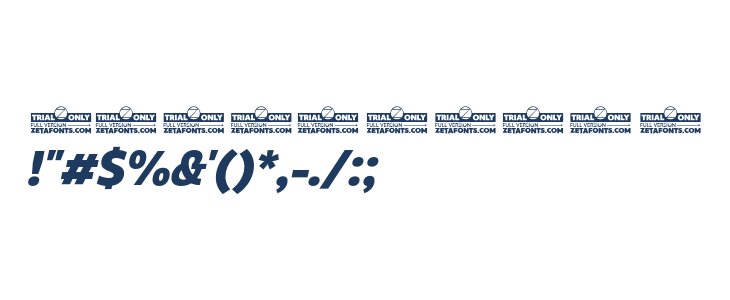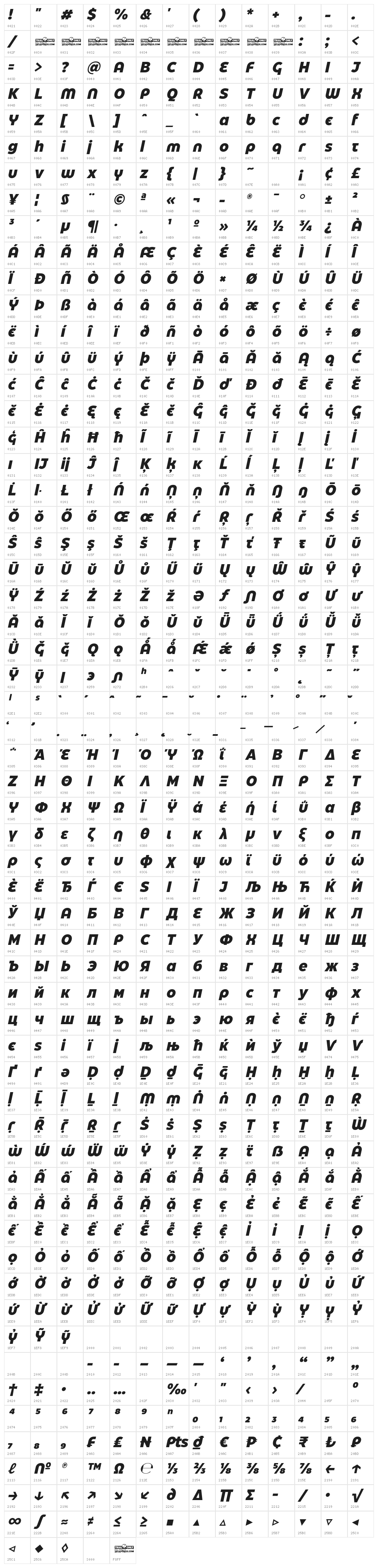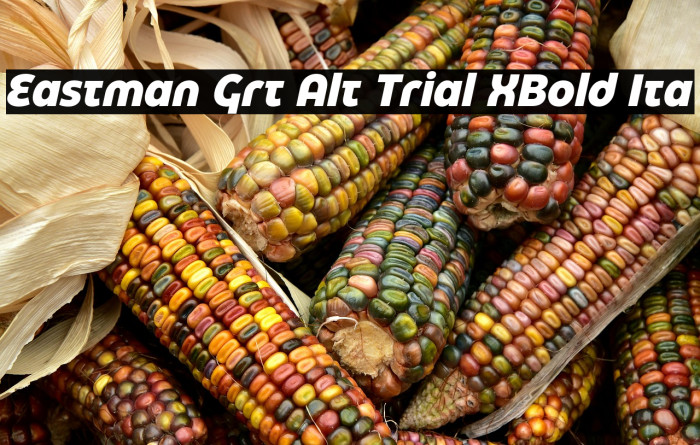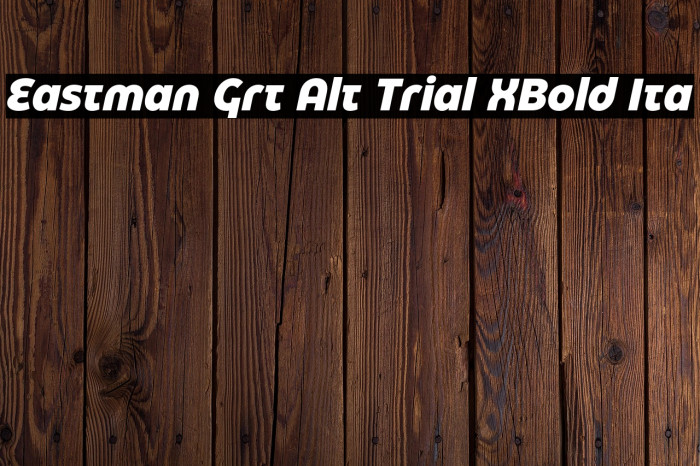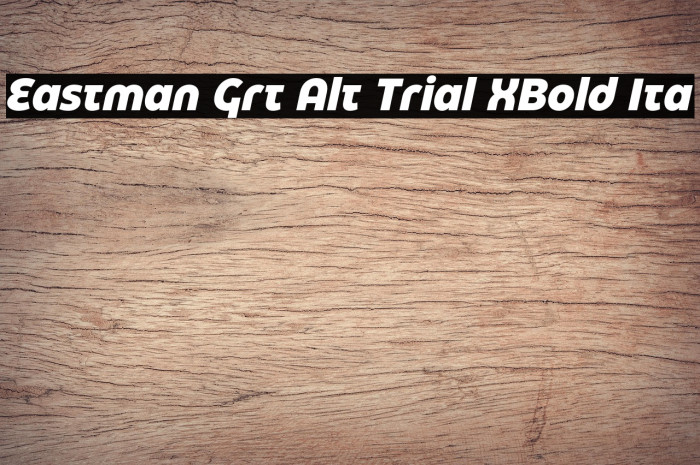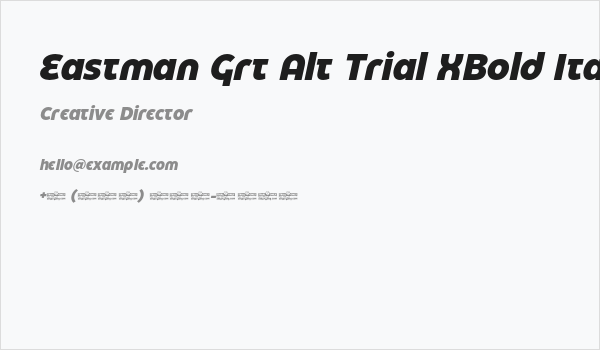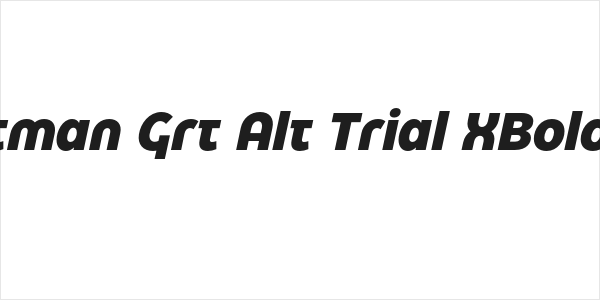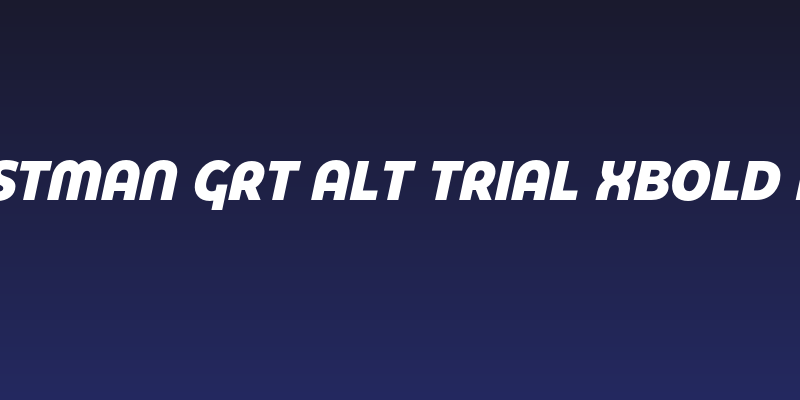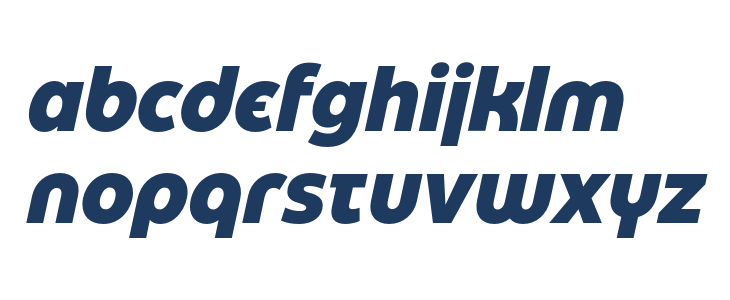
Eastman Grt Alt Trial XBold Ita Font
Eastman Grt Alt Trial XBold Ita Description
This font exhibits a bold and dynamic style with a strong presence. The characters are slightly italicized, giving them a forward-leaning appearance that suggests movement and energy. The strokes are thick and consistent, contributing to a high contrast that enhances readability and impact. The design features rounded edges and smooth curves, adding a modern and approachable feel. The spacing between characters is tight, which helps maintain a cohesive look across text. This font is well-suited for projects that require a bold statement and a contemporary aesthetic.
| Proposed Projects | Ideal for branding, advertising, headlines, and posters where a strong, modern impact is desired. |